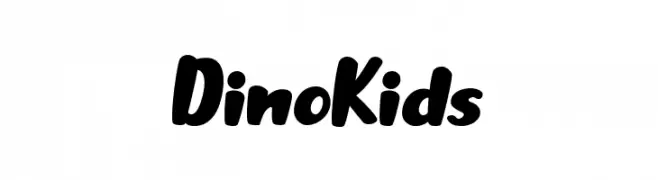
( Fonts by JoGrafik )
A playful, studded font with decorative outlines and circular embellishments.
( Fonts by Nick Curtis - www.nicksfonts.com )
A bold, high-contrast font with Art Deco influences and geometric shapes.
( Fonts by Nick Curtis - www.nicksfonts.com )
A bold, Art Deco-inspired font with high contrast and geometric shapes.
A bold, geometric font with Art Deco influences and high contrast strokes.
( Buzzbum - buzzbum.tripod.com/ )
A bold, playful font with a hand-drawn, quirky style.
( Fonts by Samantha Elliott )
Playful handwritten font with rounded edges.
A bold, expressive script font with high contrast and flowing cursive letterforms.
A bold, modern typeface with geometric structure and consistent stroke widths.
A sleek, modern font with a geometric and minimalist design.
A modern, geometric font with clean lines and uniform character width.
A sleek, ultra-thin font with a modern, minimalist design and geometric structure.
A bold, geometric font with a modern and clean style.
A modern, geometric sans-serif font with a light and airy feel.
A modern, geometric sans-serif font with a clean and minimalistic design.
A sleek, modern font with thin, geometric lines and a minimalist style.
A bold, geometric font with a halftone pattern and modern appeal.
( Fonts by Ikrar Bey Khubaib )
Energetic handwritten script with tall, narrow forms and fluid strokes.
A decorative font with a blend of modern and vintage styles, featuring intricate detailing.
( Fonts by PutraCetol Studio )
A bold, rounded font with a playful and chunky style.
( Fonts by PutraCetol Studio )
A bold, playful font with integrated paper plane motifs, perfect for creative projects.
( Fonts by PutraCetol Studio )
A playful, decorative font with a ruler-like pattern and hand-drawn aesthetic.
A modern, elegant cursive font with dynamic stroke variations.
A bold, expressive handwritten font with dynamic strokes.
( Gulash - www.czcionki.com/gulash.html )
A distressed, grungy font with a bold, textured appearance.
A bold, decorative font with a three-dimensional effect and vintage flair.
( Fonts by Letterhend Studio - Hendry Juanda - Personal-use only. For commercial use please contact owner. )
A bold, playful font with a hand-drawn, cursive style.
( Fonts by Danu Setyaji Nugroho - Personal-use only. For commercial use please contact owner. )
A bold, ornate blackletter font with intricate details and a medieval aesthetic.
A festive, decorative font with holiday-themed embellishments.
An elegant and flowing script font with thin, delicate strokes and graceful curves.
( Fonts by Andrew McCluskey - nalgames.com )
A bold, futuristic font with geometric shapes and sharp angles.
A bold, geometric font with a futuristic and digital aesthetic.